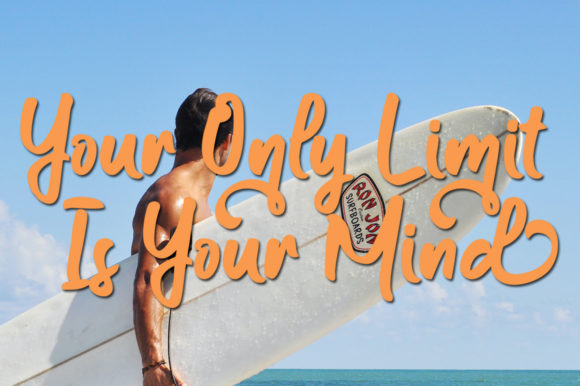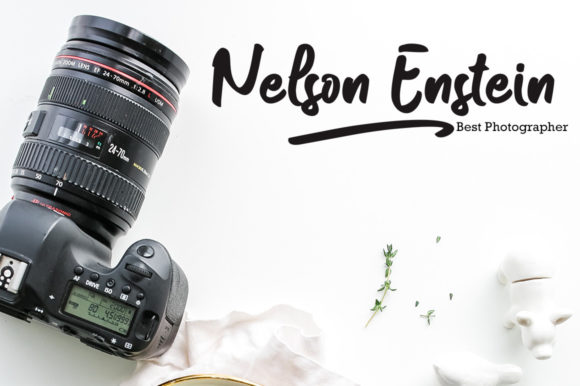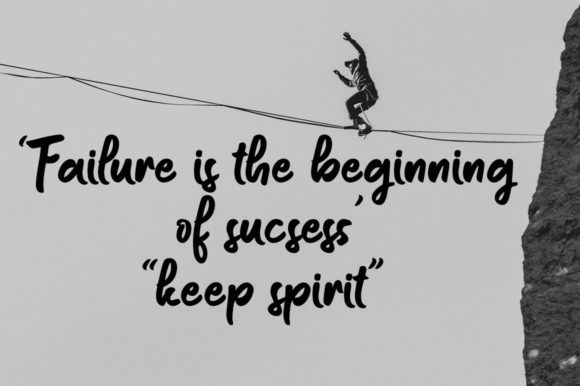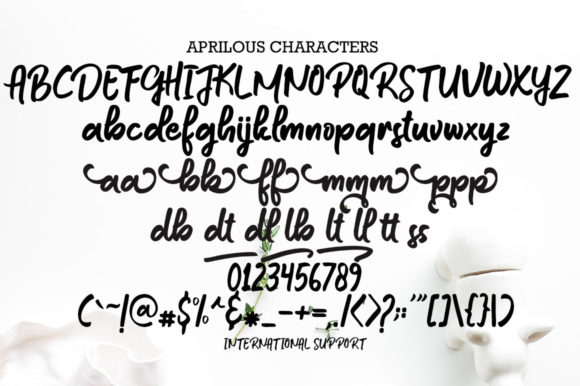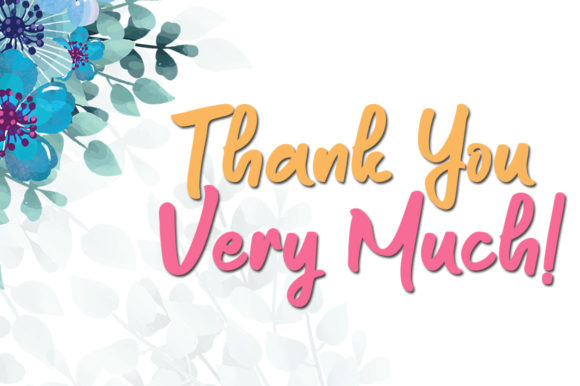
Aprilous Font
About Aprilous Font
Aprilous is a modern, smooth and flowing script font. It looks stunning on wedding invitations, thank you cards, quotes, greeting cards, logos, business cards and every other design which needs a handwritten touch.